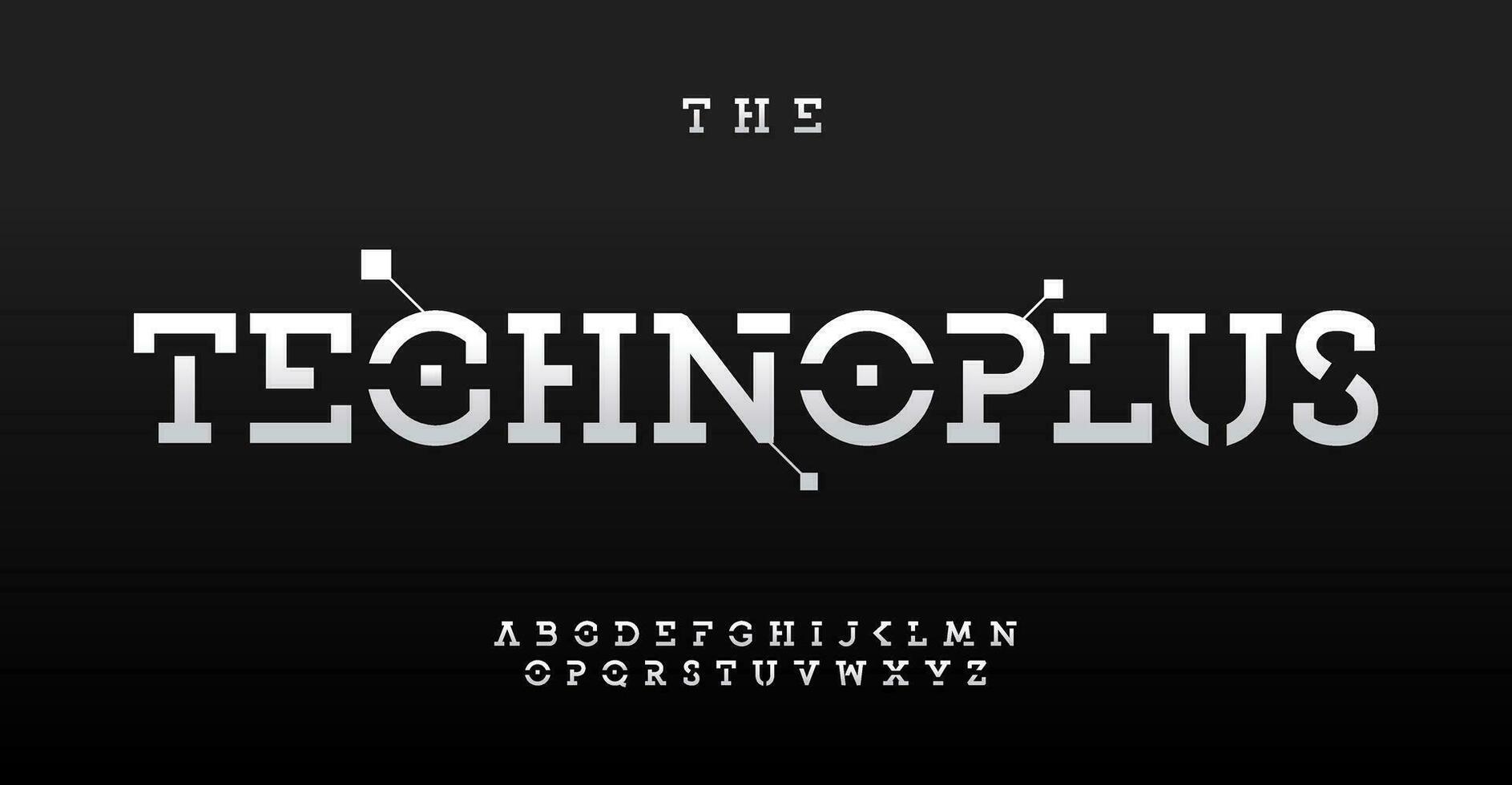
Stencil-style alphabet, bold serif letters, robust slab font for techno core logo, futuristic headline, sleek typographic design. Vector typeset Pro Vector and Pro SVG